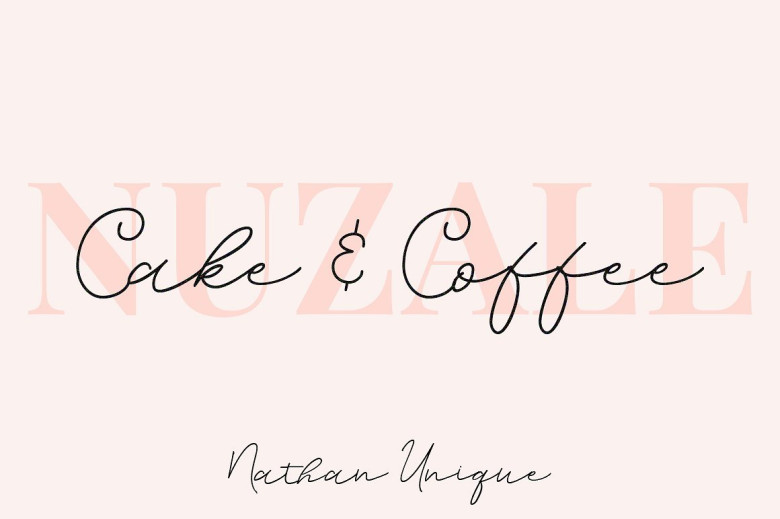
Sureder Stylish Script Font
A stylish signature font. Introducing Sureder! Sureder designed and shared by Rits Studio. SurederStylish is a signature font that you can use to make a logo for branding, beautiful fashion design, suitable for wedding invitation, or handwritten quote. Also already PUA Encoded.